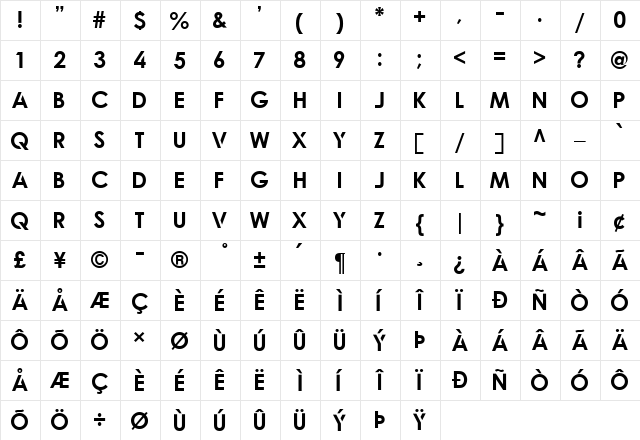
Qualy Bold
Design Context for Qualy Typeface
Qualy offers clean, dependable letterforms without strong stylistic allegiance, making it a practical choice for designers who need flexibility. Its bold stroke weight gives it real presence on the page.
Pro Tip: Use Qualy in both headline and body roles to test its range before committing to a single application.